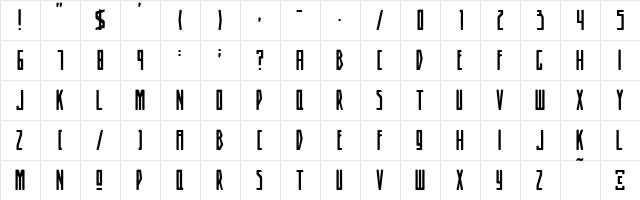
SmithPremier Medium
Design Context for SmithPremier Typeface
SmithPremier is a composed and adaptable typeface that performs quietly and consistently across a wide range of design contexts.